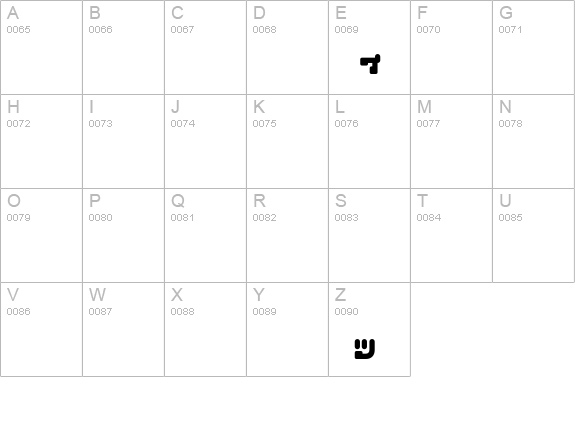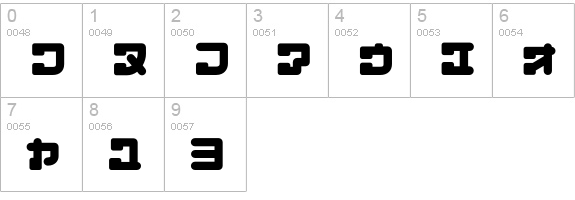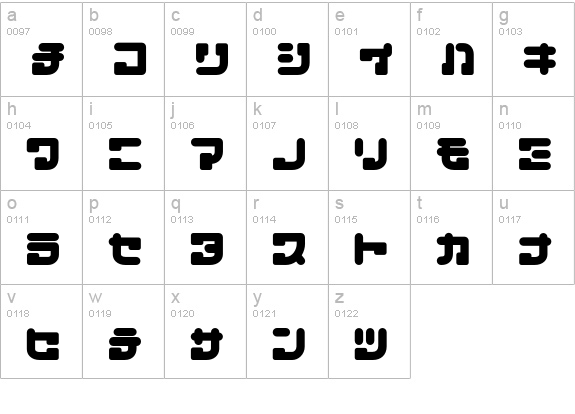
CANDY-KANA Font Details
CANDY-KANA font is a delightful and whimsical typeface that is sure to add a playful touch to any design project. With its charming and unique characters, this font is perfect for creating eye-catching headlines, invitations, posters, and more. The vibrant colors and fun shapes of CANDY-KANA will bring a sense of joy and creativity to any design. Best of all, CANDY-KANA is available for free download at FontsMarket.com. Whether you're a graphic designer looking to add a fun twist to your work or a hobbyist creating personalized crafts, this font is a fantastic choice. Don't miss out on the opportunity to add CANDY-KANA to your font collection today!